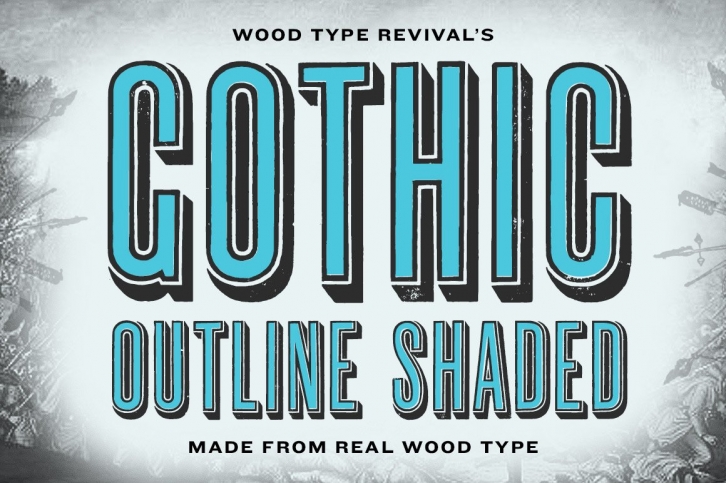
Gothic Outline Shaded is a revival of a 100 year old hand-carved face sent to us straight from England. This display face was drawn from a 15 line face that we purchased in 2011. Outlined and shaded, this design grabs the attention from any other faces in it's proximity.
The font includes three weights: regular, fill, and distressed. The regular weight is a clean, precise redraw which captures the contours of the original wood type. The fill is designed to be used with the regular weight. The distressed weight is a rendering of the textures of the letterpress proof itself, warts and all.
Because wood type was created for headlines, fonts of wood type rarely have extensive character palettes. The characters pictured above are the historically accurate glyphs represented in this font.